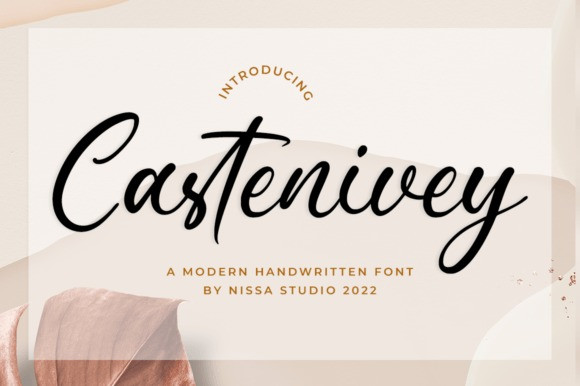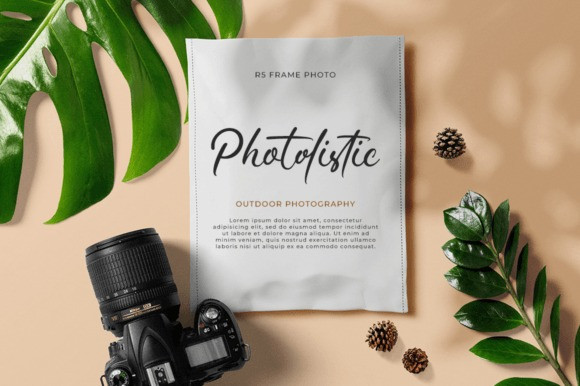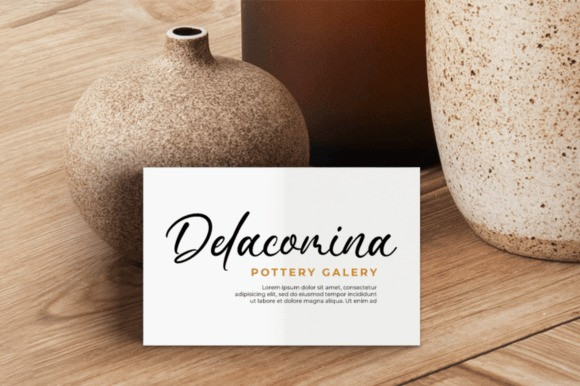
Castenivey Font
Castenivey is a beautiful and delicate handwritten font with a unique feel and a stunning impact. It will add a luxury spark to any design project that you wish to create! This font is PUA encoded which means you can access all of the amazing glyphs and ligatures with ease!